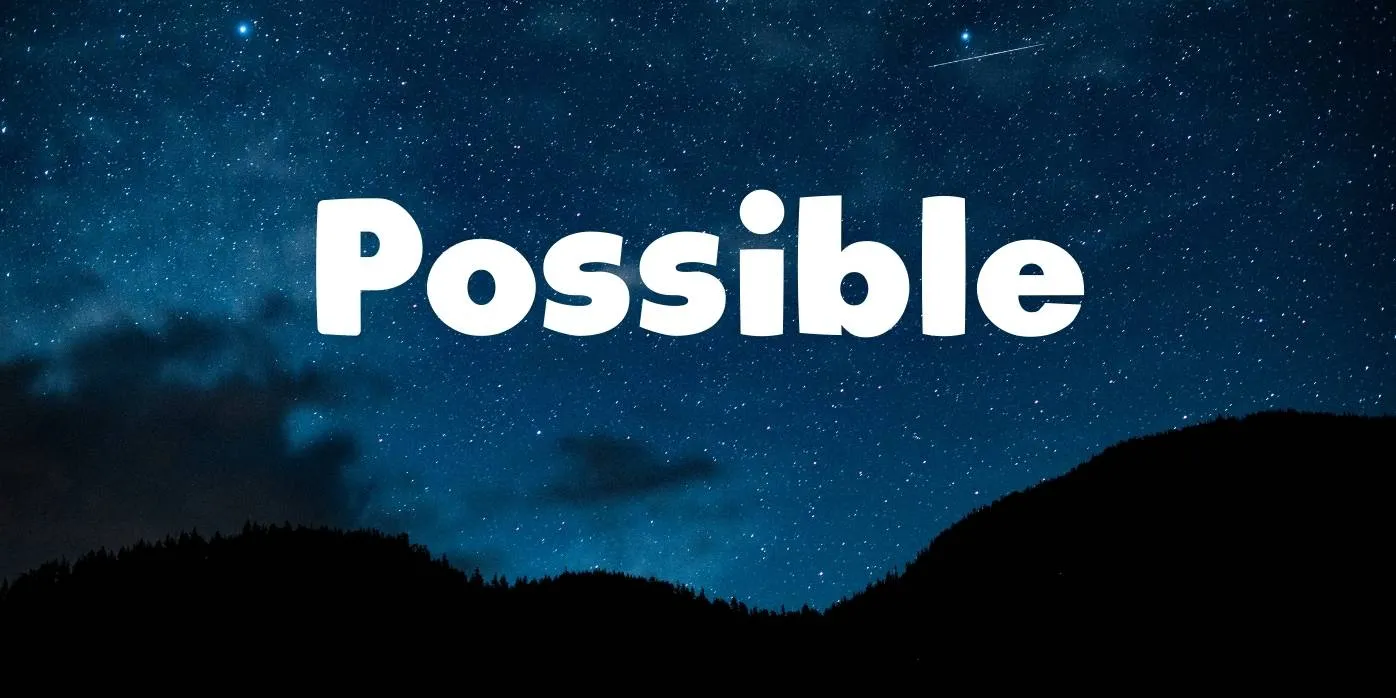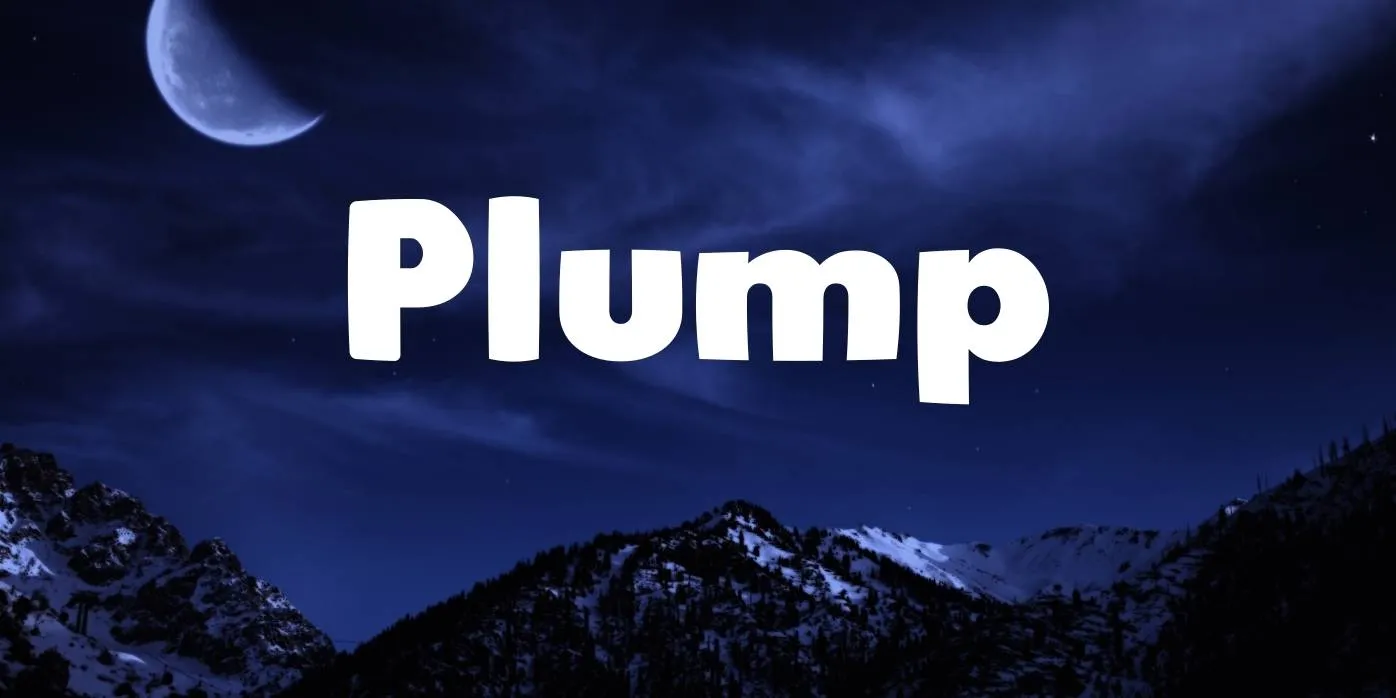
Plump Font
Let’s introduce a typeface with bold and readable characters. Ogle Studio designed Plump Font. This is a fancy typeface. It is available in both TrueType and Opentype formats.
It has a wide range of features and usages. The only reason behind is that the characters of this font are bold, attractive, readable, and supportive. The prequel font is usually paired with this font. This pair has exceptional qualities.
For pretty results, you have to use both fonts. It will fix your designs in terms of beauty, economy, and quality. You may also generate it through an online generator tool. It will decrease your efforts.